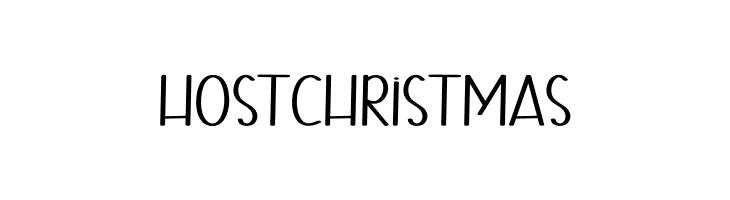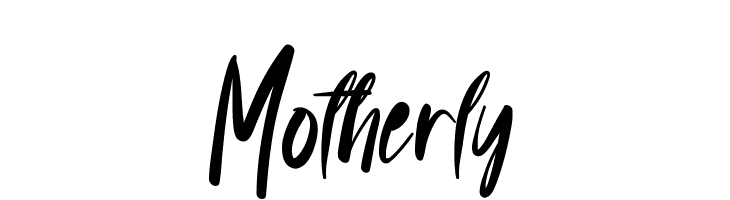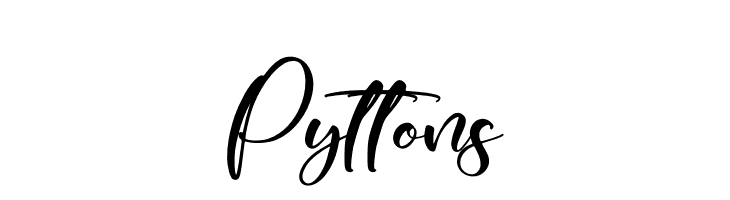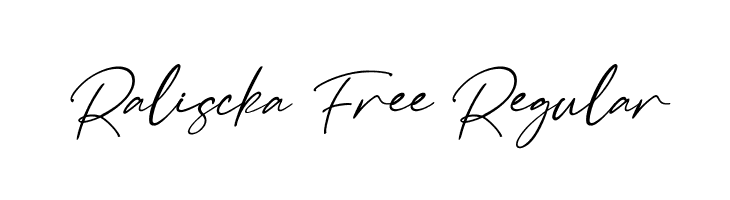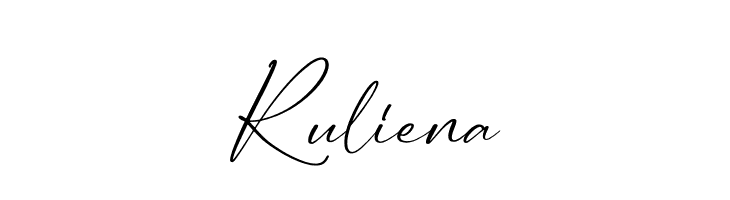
A playful, bold font with rounded edges and a friendly appearance.
A casual, handwritten font with a playful and informal style.
An elegant script font with flowing, cursive letters and ornate flourishes.
A playful, casual handwritten font with smooth, rounded letterforms.
A playful, bold handwritten font with a casual and friendly style.
A playful, handwritten font with smooth, rounded edges and a casual style.
A playful, casual handwritten font with smooth, rounded edges and consistent stroke thickness.
A playful, handwritten-style font with bold, rounded characters.
A playful, casual handwritten font with smooth, rounded edges.
A sophisticated and elegant handwritten font with flowing, connected letterforms.
A playful, rounded font with a hand-drawn, friendly appearance.
A bold, playful, and hand-drawn style font with rounded edges.
A flowing, cursive script font with elegant, connected strokes.
A playful, casual handwritten font with smooth, flowing lines and clear readability.
A bold, playful font with rounded edges and a hand-drawn look.
A playful, casual handwritten font with smooth, rounded strokes.
A fluid and elegant script font with dynamic letterforms.
A fluid, handwritten font with a casual elegance, ideal for personal and creative projects.
A playful, casual handwritten font with smooth, rounded edges.
A playful, handwritten-style font with bold, rounded strokes.
A playful, hand-drawn font with rounded, friendly characters.
A sophisticated serif typeface with modern elegance and high contrast.
A casual, hand-drawn font with rounded, playful letterforms.
A playful, casual handwritten font with smooth, flowing lines and rounded shapes.
A playful, casual handwritten font with rounded, consistent strokes.
A playful, casual handwritten font with smooth, flowing curves.
A playful, bold handwritten font with rounded edges and a casual style.
A playful, handwritten font with smooth, rounded strokes and a casual style.
A playful, decorative font with rounded edges and whimsical accents.
A playful, casual handwritten font with smooth, rounded edges.
A playful handwritten font with rounded edges and a friendly appearance.
A playful, casual handwritten font with smooth, rounded strokes.
A playful, handwritten font with smooth curves and a casual style.
A casual, handwritten font with smooth curves and a friendly appearance.
A casual, handwritten font with a playful and informal style.